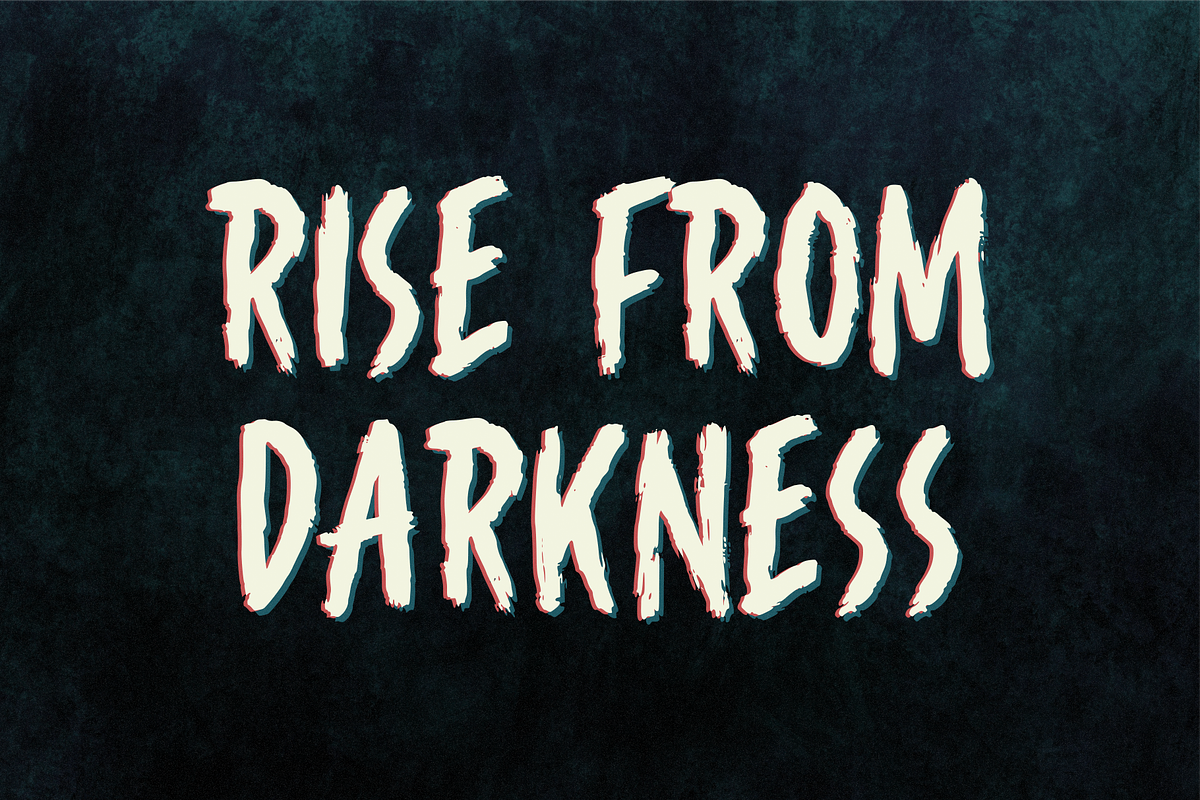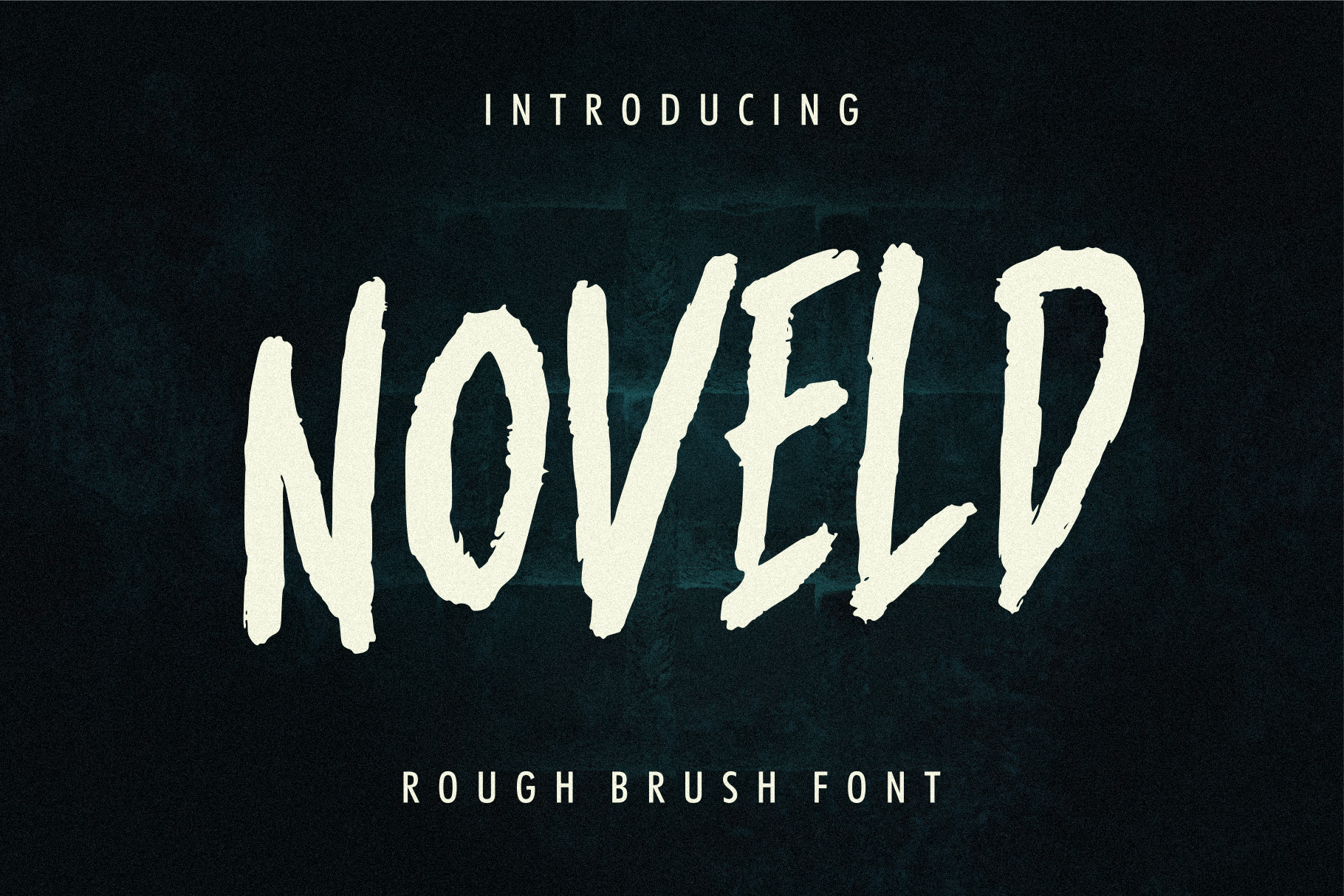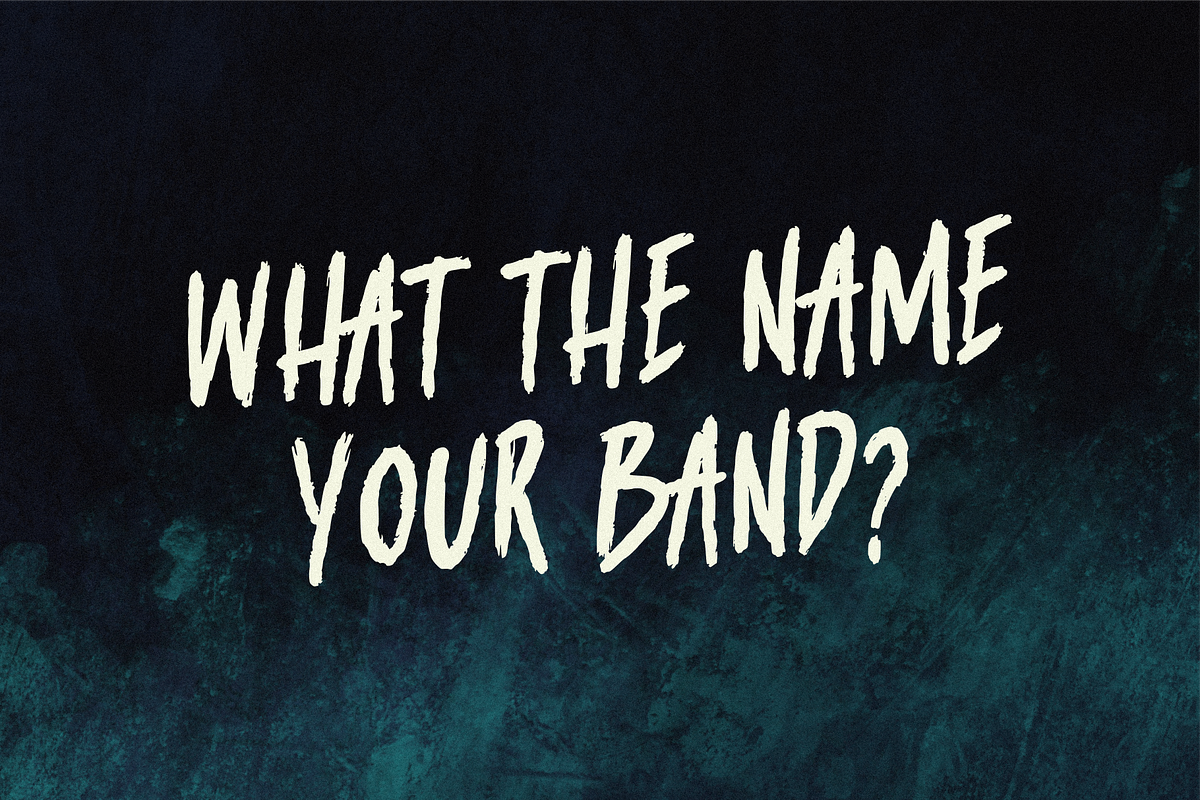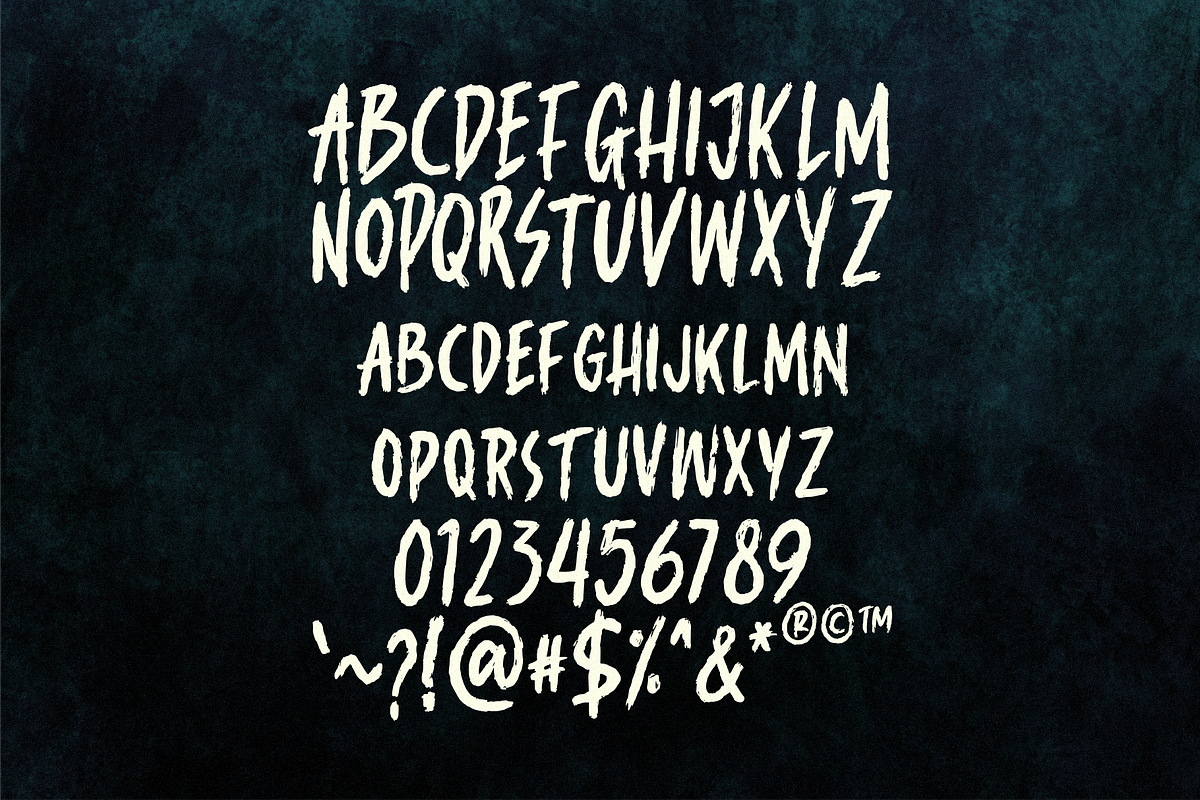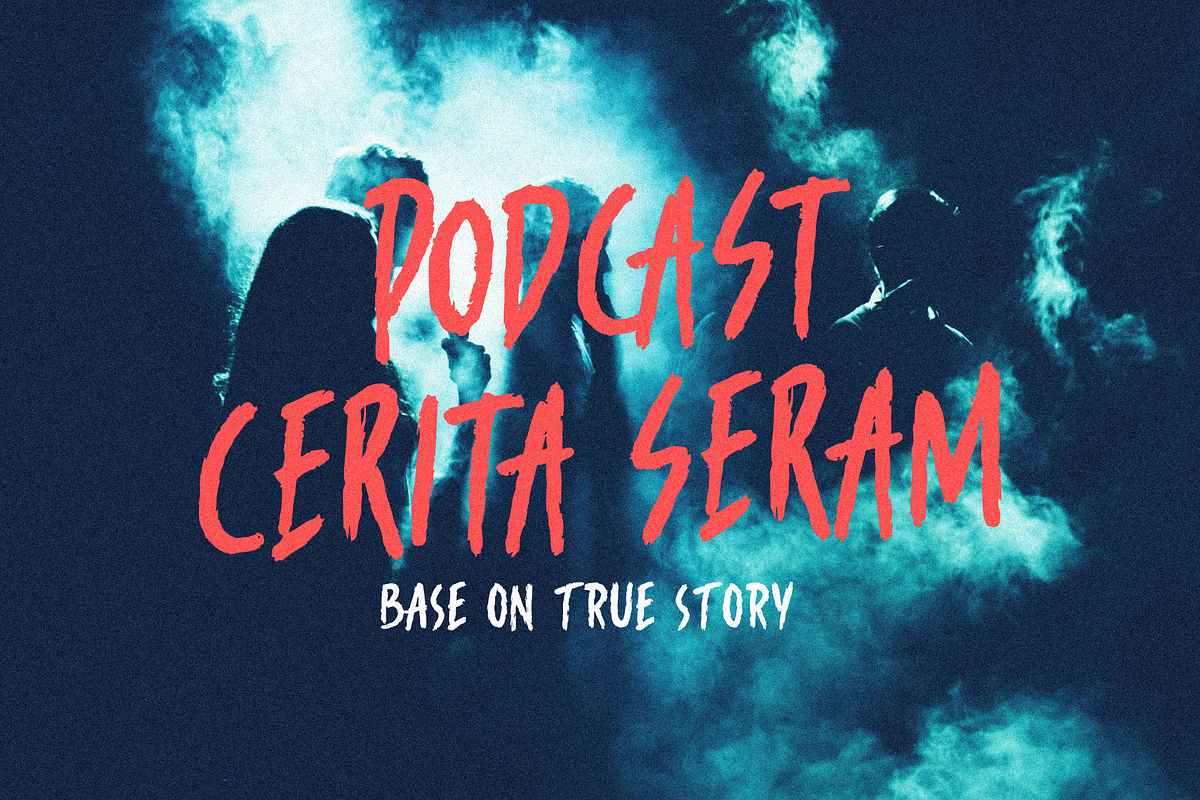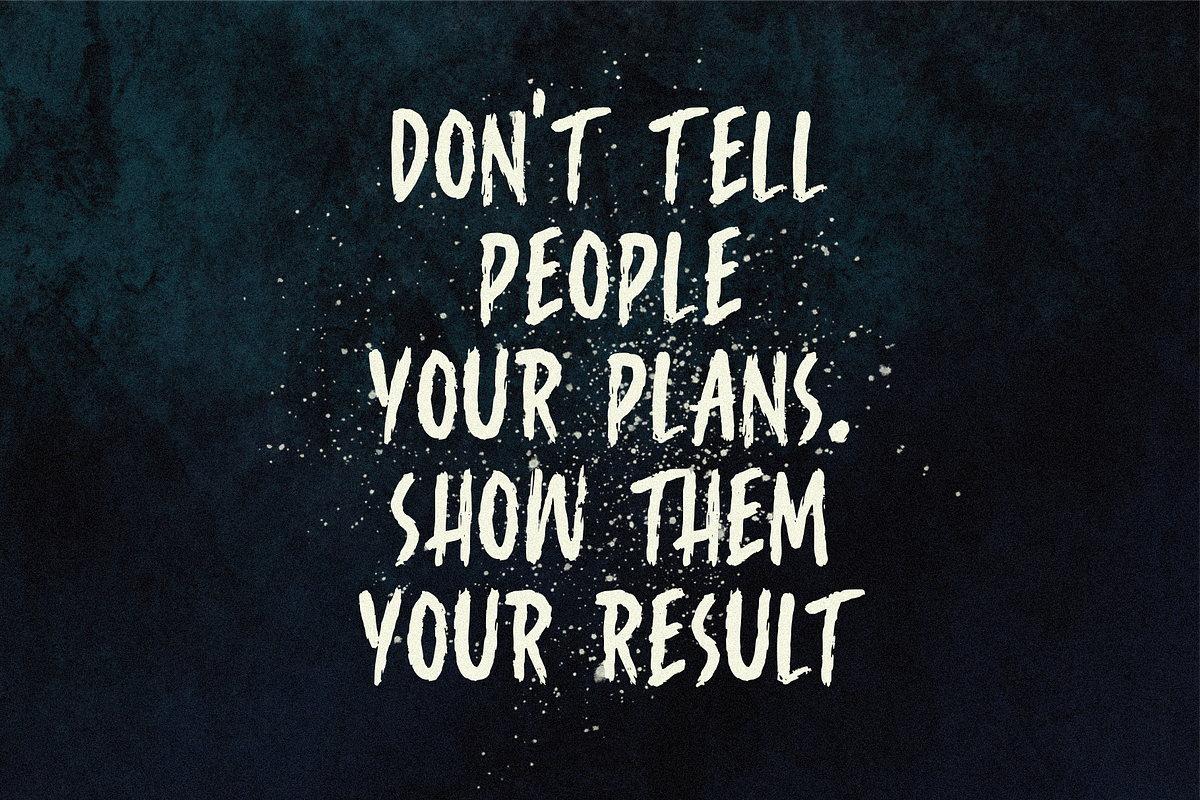
Noveld Brush Font
introduces a collection of brush fonts with a mysterious and horror impression, suitable for text in illustrations, logos, signgage, healine, master sign, posters, halloween party and others.
- All Uppercase